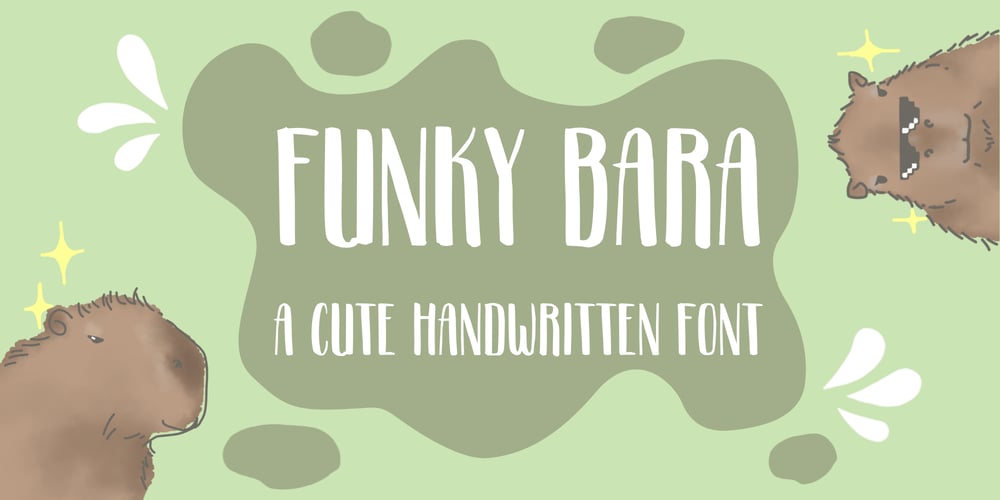
Funkybara Font Family was designed by Monica Tatontos and published by Moncimon. Funkybara contains 1 styles and family package options. Funkybara is a charming hand-drawn font, snugly condensed to add a playful touch to your projects. With its quirky charm and unique character, it brings an irresistible sweetness to everything from branding to social media graphics. Perfect for designs that need a fun, approachable vibe, Funky Bara turns text into a delightful visual experience, making your message not just readable, but also memorable and full of personality.